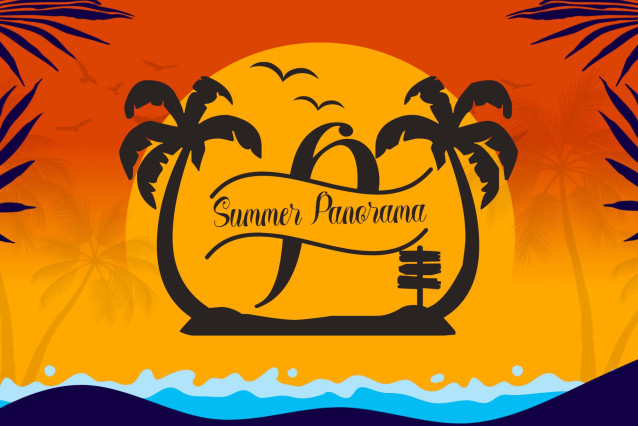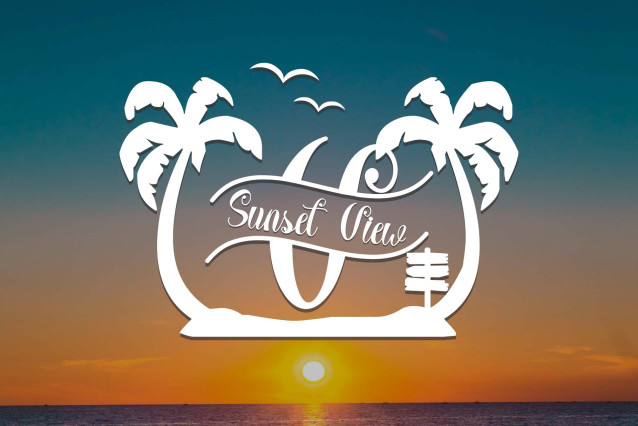
Summer Panorama Monogram Font is a beautiful and Elagan monogram font. This font is equipped with monograms, uppercase, lowercase letters, numerals, punctuations and multilingual support. It is suitable for Summer, Spring, Father’s Day, Christmas, Wedding, Invitations, Birthday and others.